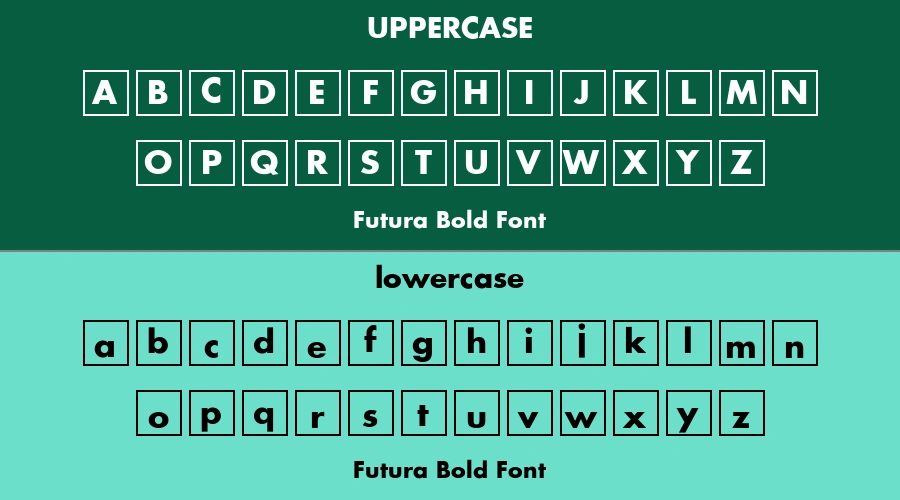
About Futura-Bold Font
Futura-Bold Font embodies typographic excellence through its masterful combination of confident strokes and professional reliability. Created for legal documents, this typeface delivers exceptional integrity and literary appropriateness across all applications. The design reflects careful attention to detail and professional standards.
Advanced capabilities include distinctive dramatic weight and versatile tabular figures, giving designers creative control. When used in promotional materials, Futura-Bold Font exhibits remarkable small cap rendering. The harmonious balance between descender depth and brand personality sets this typeface apart.